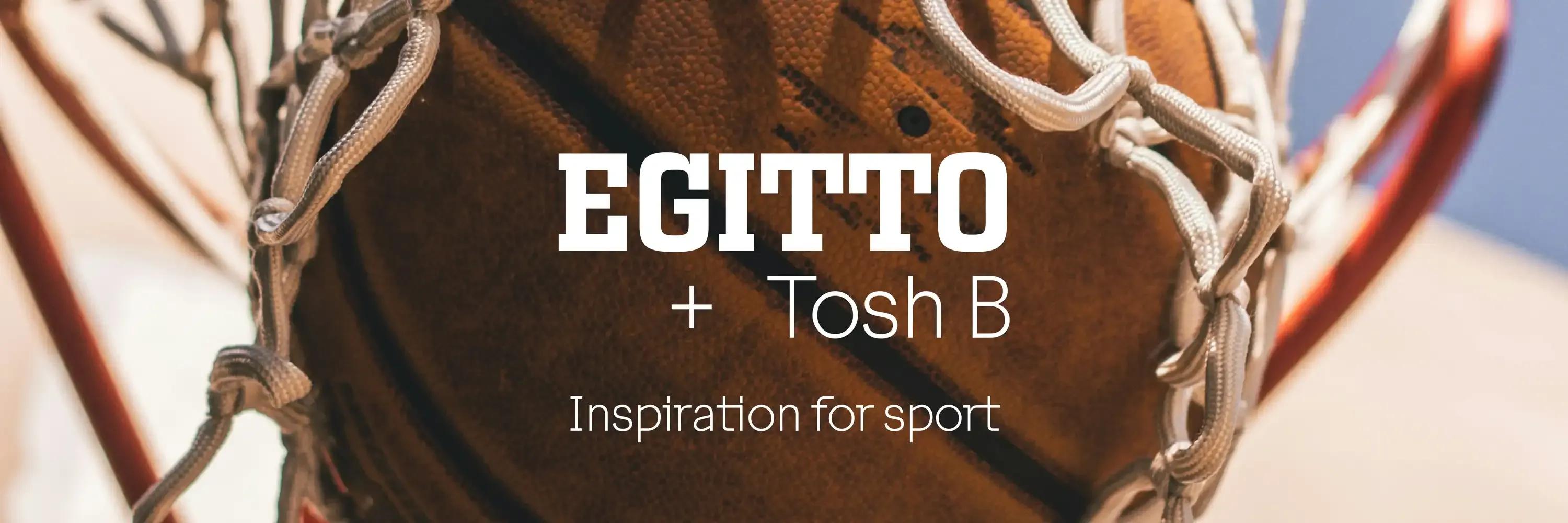
Egitto & Tosh: Inspiration for sport
Egitto & Tosh: The Dream Team of Sports Branding
When it comes to sports branding, your typography needs to do more than look good—it needs to exude power, precision, and passion. Enter Egitto and Tosh, a dynamic duo built to make an impact both on and off the field. Whether you’re designing for a championship team or creating slick event collateral, this pair delivers a winning combination.
Egitto: The Power Player
While Tosh embodies sleek efficiency, Egitto is the heart-pounding roar of the crowd. Bold, striking, and full of energy, Egitto brings the passion of a championship game to every design. This font doesn’t just make an impact—it leaves a legacy.
- Strength in Every Detail:
With commanding serifs and a bold stance, Egitto dominates everything from billboards to team jerseys. It’s a font with authority, built to lead. - Dynamic and Adaptable:
From stadium logos to grassroots event flyers, Egitto thrives in every arena. Its versatility ensures your branding feels consistent, no matter the scale or platform. - Built for Endurance:
In high-pressure environments—think fast-paced animations or demanding print designs—Egitto stays sharp, legible, and impactful.
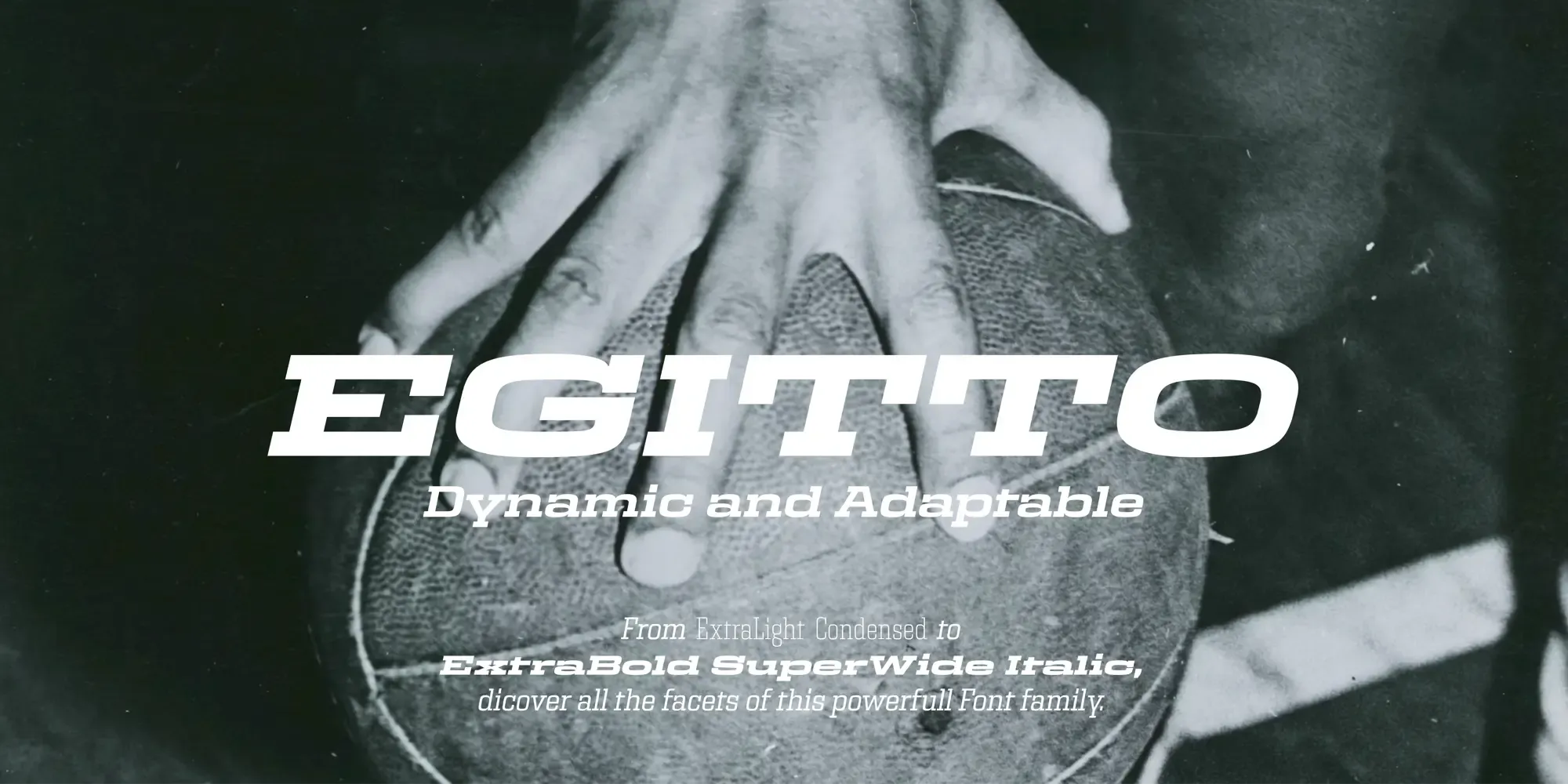
Tosh: The Agile Strategist
If Egitto is the star athlete, Tosh is the mastermind behind the play. Clean, modern, and effortlessly cool, Tosh provides a polished foundation for your branding. It’s the ultimate team player, quietly enhancing every detail.
- Sleek Precision:
Tosh’s crisp lines and minimalist aesthetic create the perfect foil to Egitto’s bold energy. It’s ideal for captions, stats, or any element that demands clarity with style. - Versatile Minimalism:
From sleek product packaging to digital scoreboards, Tosh adapts seamlessly to any context. It’s a font that does the job, and does it beautifully. - Chic Under Pressure:
Whether it’s on social media graphics or event schedules, Tosh keeps your message sharp, contemporary, and easy to read—even when the stakes are high.
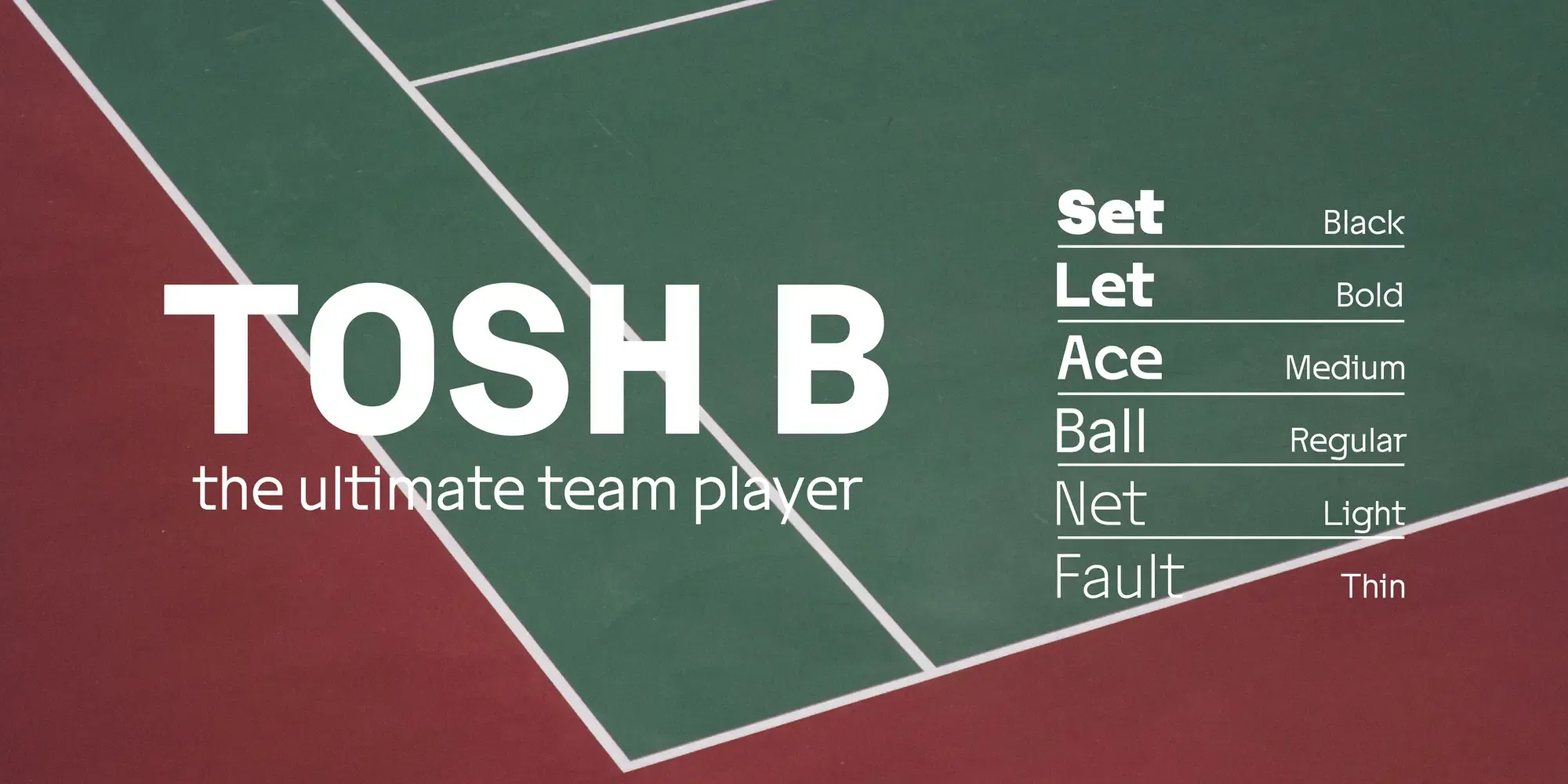
A Championship-Worthy Duo
Together, Egitto and Tosh are like Jordan and Pippen, or Serena and her racket—a partnership that’s simply unstoppable.
- Power and Precision:
Egitto grabs attention with bold authority, while Tosh ensures every detail stays clear and refined. - Energy Meets Elegance:
Egitto delivers the adrenaline, Tosh adds the finesse. Together, they strike the perfect balance of strength and sophistication. - Dynamic Storytelling:
Whether you’re crafting powerful headlines or sleek subtext, this duo helps create a cohesive narrative that inspires and energizes your audience.
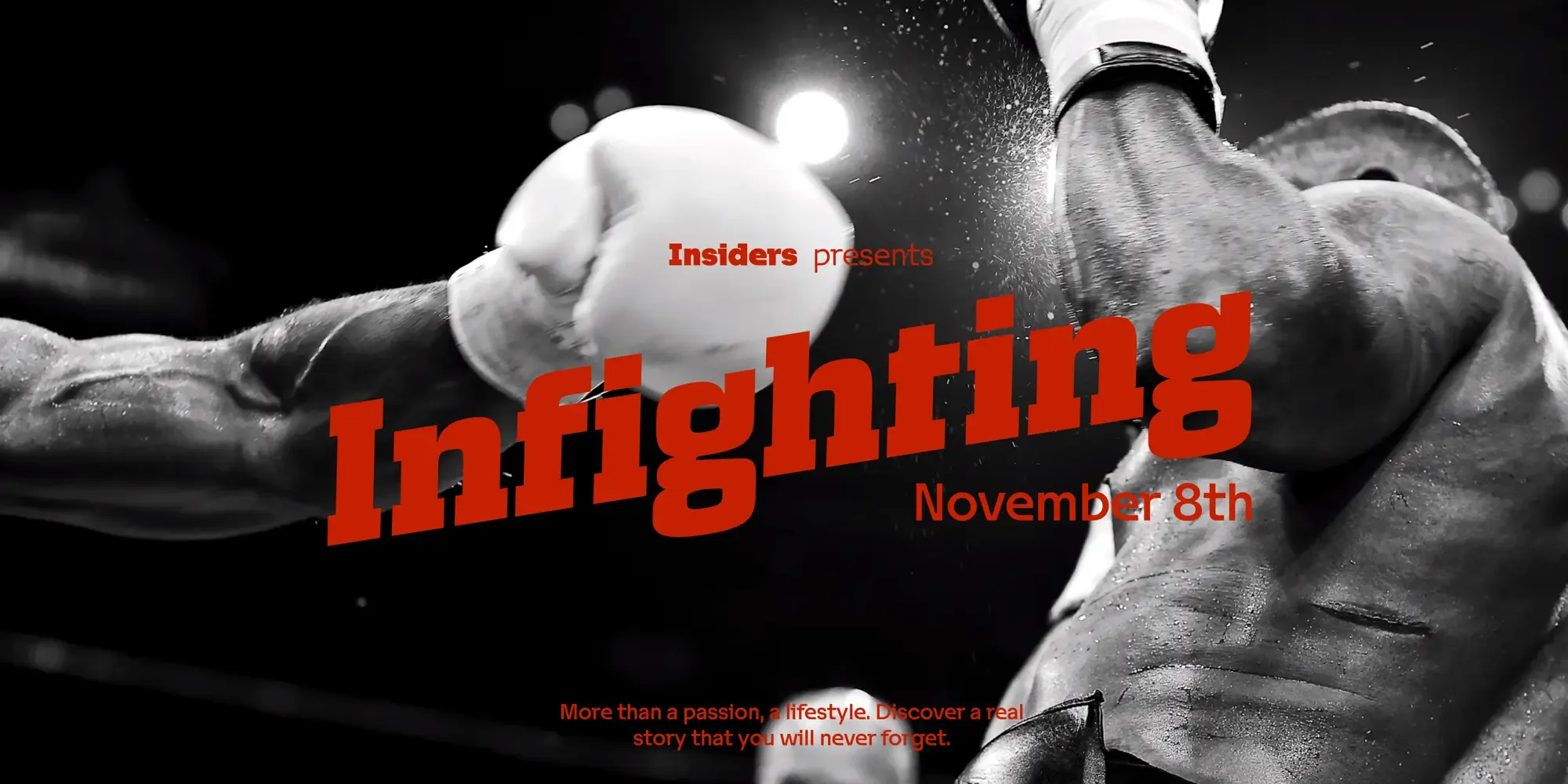
The Game Plan for Success
Egitto and Tosh aren’t just fonts; they’re your winning strategy. They’ll elevate your designs, energize your branding, and ensure your message stands out in the competitive world of sports.
Because in branding, just like in sports, it’s not about playing it safe—it’s about playing to win. So add Egitto and Tosh to your team, and watch your designs cross the finish line in style.